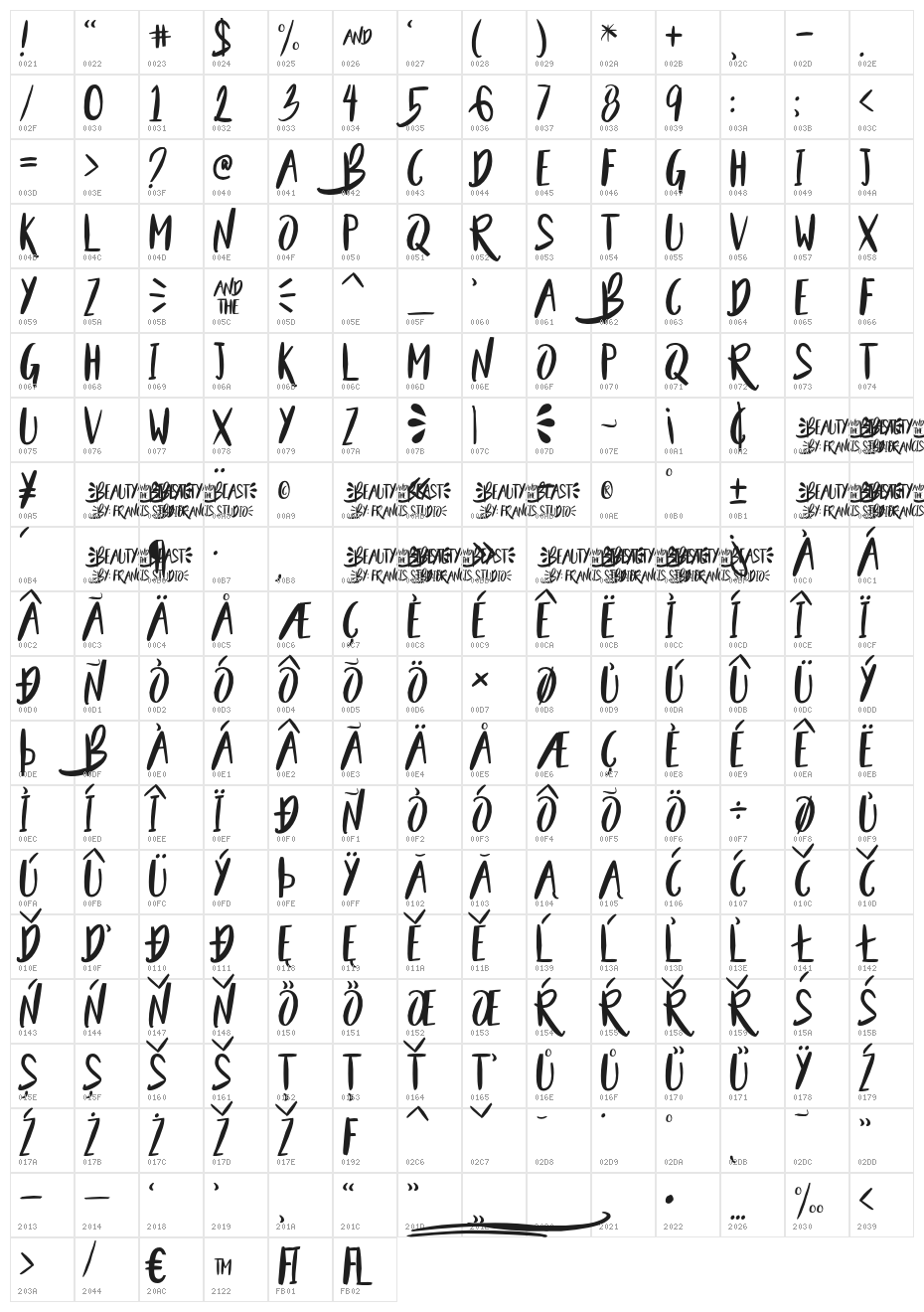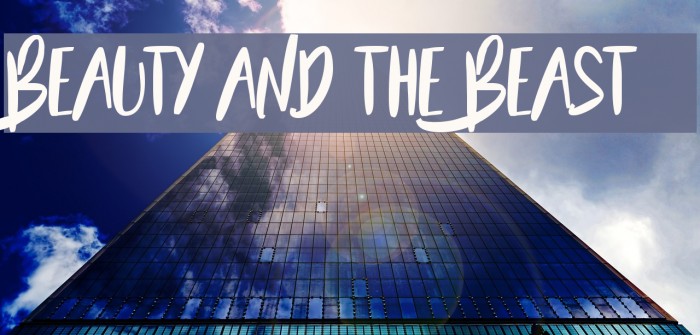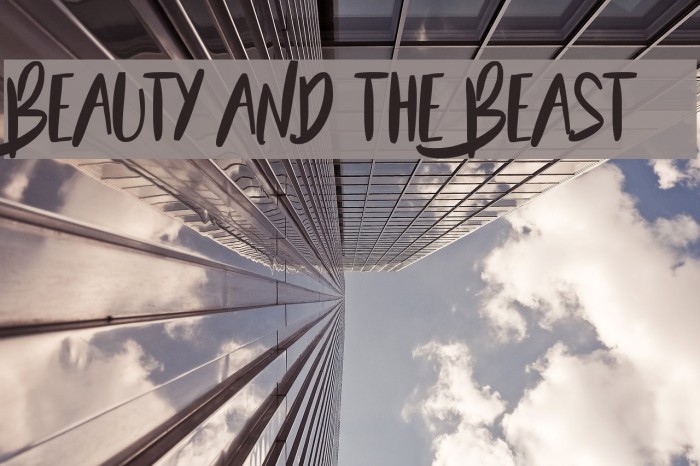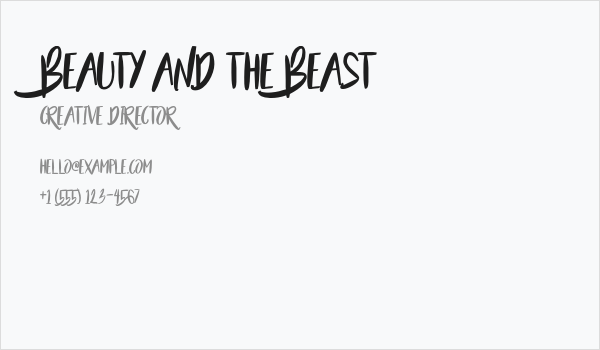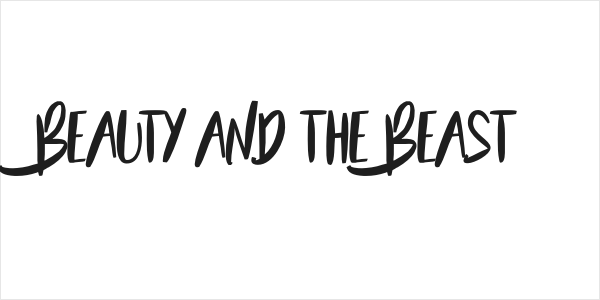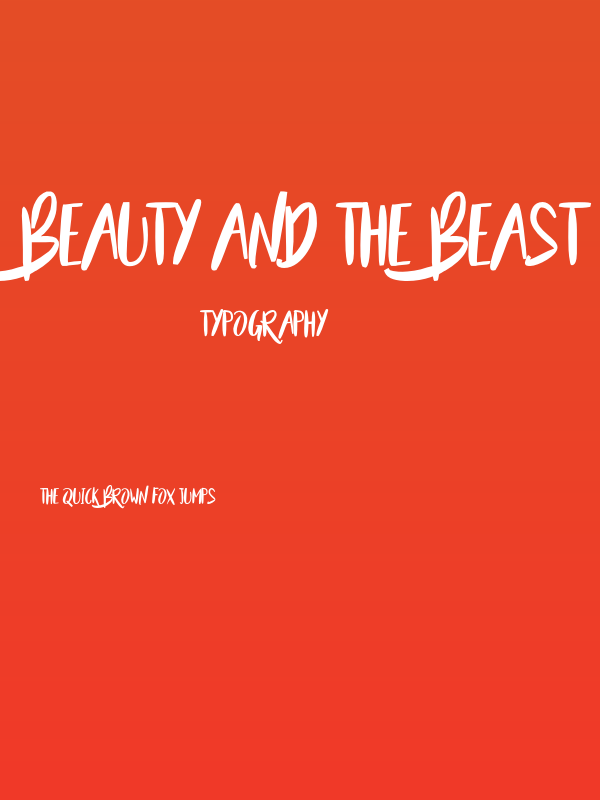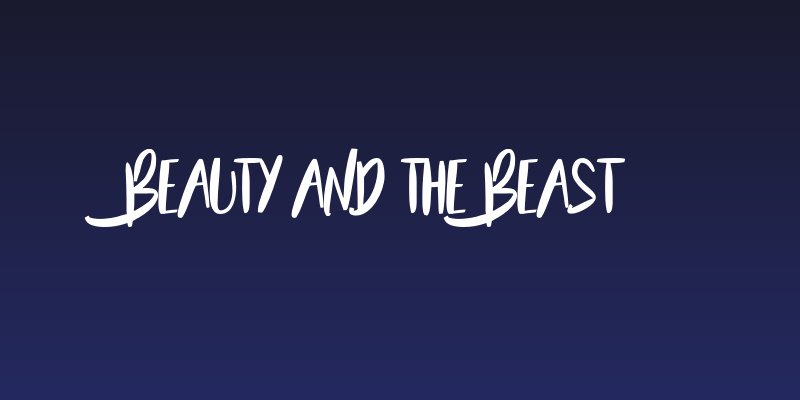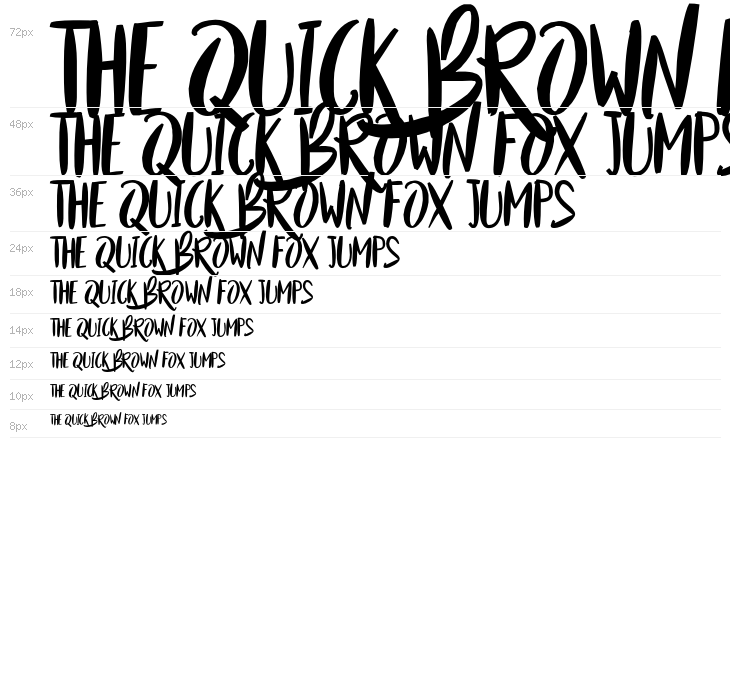
Beauty and the Beast Font
Beauty and the Beast Description
This font features a bold, handwritten style with a playful and energetic vibe. The letters are characterized by their tall and narrow form, with a slight slant that adds a dynamic feel. The strokes are thick and consistent, giving the font a strong presence. The uppercase and lowercase letters maintain a cohesive look, while the numerals and special characters blend seamlessly with the overall design. The font's informal and artistic nature makes it suitable for creative projects that require a personal touch.
| Proposed Projects | Ideal for greeting cards, posters, social media graphics, and branding materials that require a personal and artistic touch. |